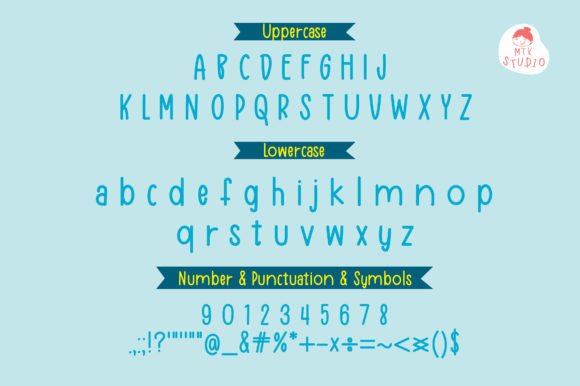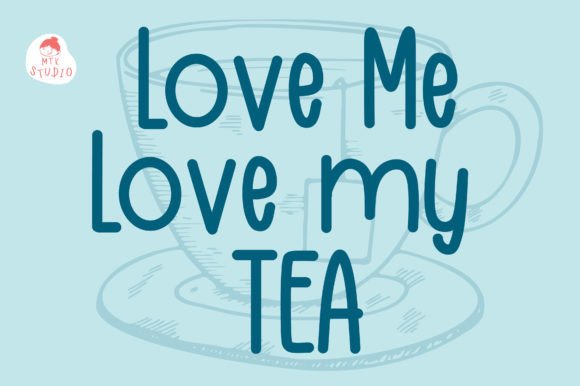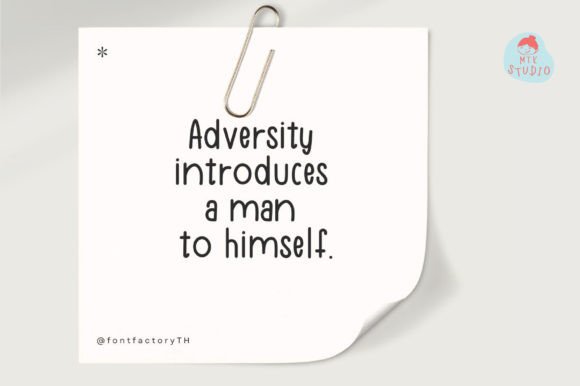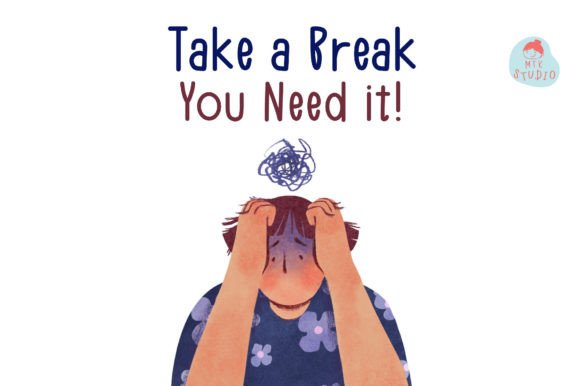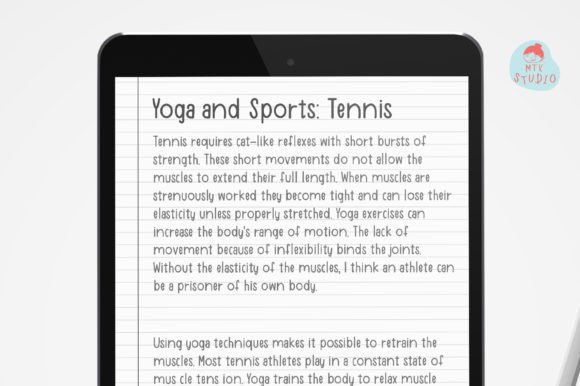
Cuppingtea Font: The Perfect Addition to Your Creative Projects
Are you a designer, crafter, or DIY enthusiast looking for a unique and charming font to add a personal touch to your projects? Look no further than Cuppingtea Font! This adorable handwritten font is sure to capture the hearts of anyone who lays eyes on it. In this article, we’ll dive into the world of Cuppingtea Font, exploring its features, benefits, and uses, as well as provide tips on how to make the most of this delightful font.
What is Cuppingtea Font?
Cuppingtea Font is a cute and friendly handwritten font designed to bring a touch of warmth and personality to your creative projects. With its playful and approachable feel, this font is perfect for a wide range of applications, from crafting and scrapbooking to branding and advertising. Whether you’re creating invitations, labels, or social media graphics, Cuppingtea Font is sure to add a dash of charm and whimsy to your designs.
Features of Cuppingtea Font
So, what makes Cuppingtea Font so special? Here are just a few of its standout features:
- Handwritten charm: Cuppingtea Font boasts a beautifully handwritten aesthetic, complete with subtle imperfections and variations that give it a delightfully human touch.
- Cute and friendly: This font exudes a sense of warmth and approachability, making it perfect for projects that require a playful and inviting vibe.
- Highly versatile: Whether you’re working on a digital project or a physical one, Cuppingtea Font can be used in a variety of contexts, from titles and headings to body text and captions.
Benefits of Using Cuppingtea Font
So, why should you choose Cuppingtea Font for your next project? Here are just a few benefits of using this lovely font:
- Adds a personal touch: With Cuppingtea Font, you can add a dash of personality to your projects, making them stand out from the crowd and leaving a lasting impression on your audience.
- Enhances creativity: This font’s playful and imaginative vibe can help spark your creativity, inspiring you to think outside the box and try new things.
- Perfect for crafty projects: Cuppingtea Font is a natural fit for crafty projects like scrapbooking, journaling, and card-making, where its handmade aesthetic can add an extra layer of charm.
Tips for Using Cuppingtea Font
Ready to get started with Cuppingtea Font? Here are a few tips to help you make the most of this delightful font:
- Experiment with sizes and colors: Don’t be afraid to play around with different font sizes and colors to find the perfect combination for your project.
- Mix and match with other fonts: Cuppingtea Font pairs beautifully with other fonts, so feel free to experiment with combining it with different typefaces to create a unique look.
- Use it for titles and headings: This font’s bold and playful aesthetic makes it perfect for titles and headings, where it can add a touch of drama and flair.
In conclusion, Cuppingtea Font is a charming and versatile handwritten font that’s perfect for designers, crafters, and DIY enthusiasts looking to add a personal touch to their creative projects. With its cute and friendly aesthetic, this font is sure to capture the hearts of anyone who uses it. So why wait? Download Cuppingtea Font today and discover the magic for yourself!
- Q: What is Cuppingtea Font?
- A: Cuppingtea Font is a cute and friendly handwritten font designed for use in creative projects.